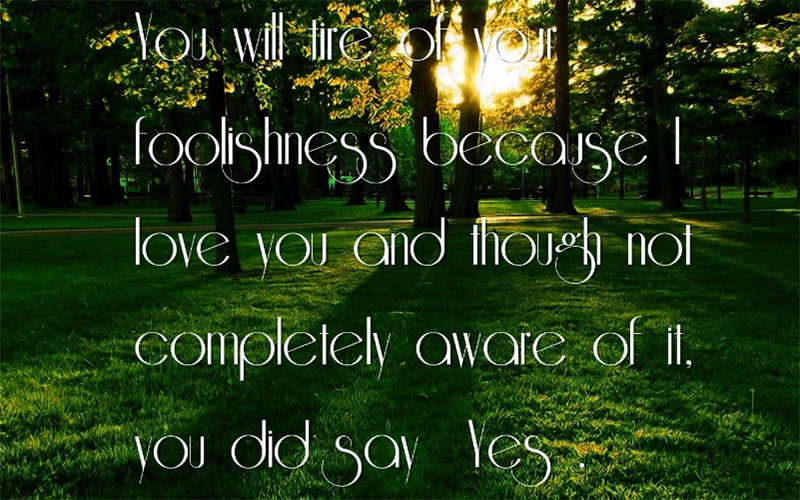
Riesling Font is a remarkable typeface that exudes elegance and sophistication. Known for its distinctive style and versatile applications, it has become a favorite among designers for its ability to enhance various design projects.
It stands out as one of his most celebrated creations, blending Art Deco influences with modern sensibilities. It was designed by the talented typographer and graphic designer, Bright Ideas.
Known for his innovative and creative approach to type design, Bright Ideas has crafted numerous fonts that have gained popularity for their unique aesthetic and functionality.
Its elegant, flowing lines and high contrast between thick and thin strokes give it a refined and sophisticated look, making it ideal for attention-grabbing headlines and titles.
The versatility of Riesling Font makes it suitable for a wide range of applications, including Logo Design, event Invitations, Advertising, Book Covers, Packaging Design, and Signage.
Riesling features a high contrast between its thick and thin strokes, enhancing its visual appeal and readability. Riesling’s elongated and flowing letterforms add a touch of elegance and sophistication to any design.